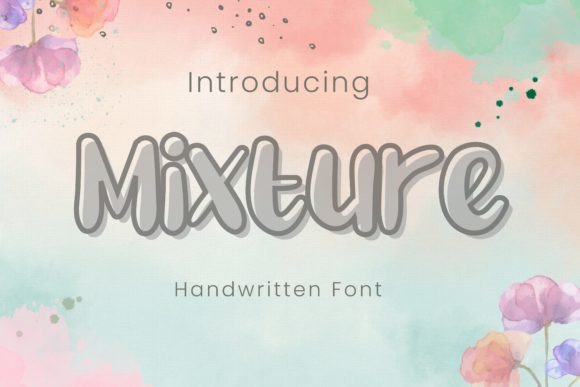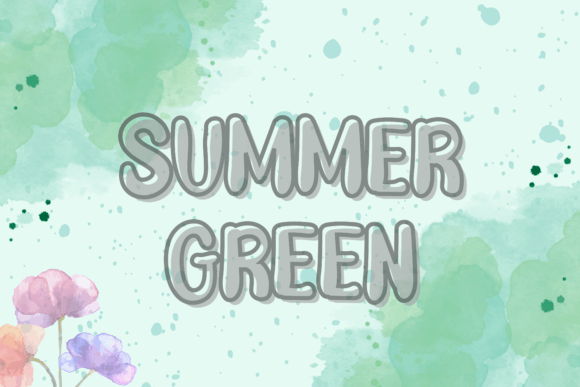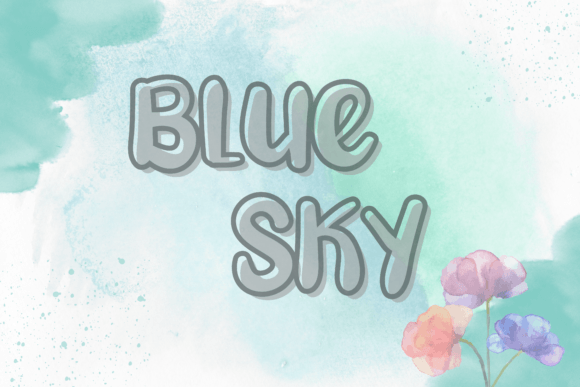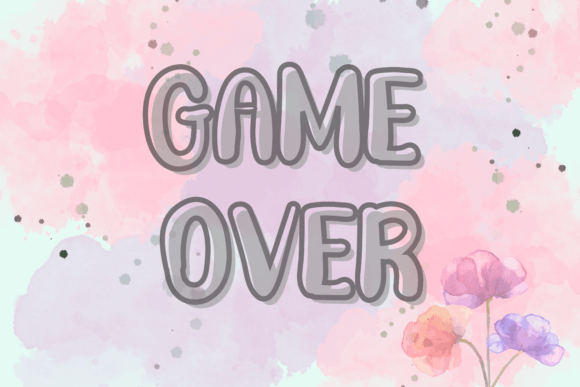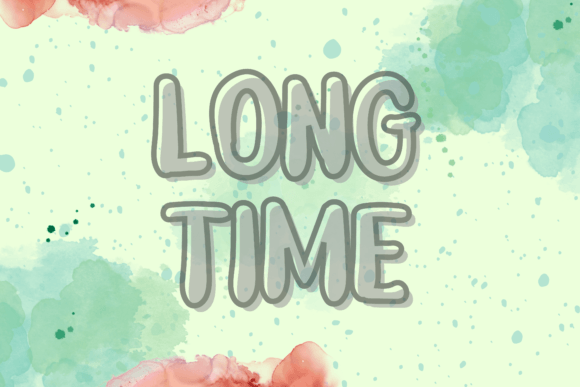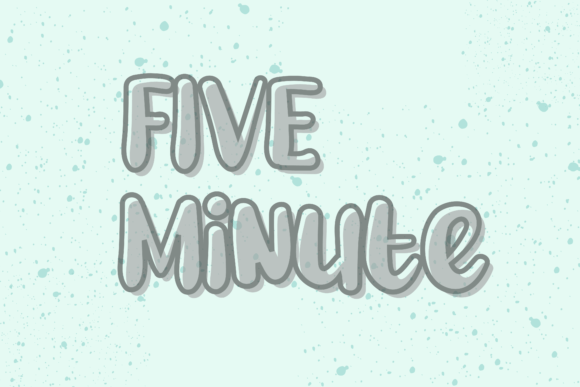
Mixture Font
About Mixture Font
**Mixture** is a delightful and charming handwritten font that combines sweetness with cuteness. Its captivating style makes it an ideal choice for a variety of design projects, adding a touch of charm and beauty. Whether used in logos, wedding invitations, t-shirts, letterheads, labels, news articles, posters, badges, or any creative endeavor, Mixture brings a unique and delightful flair to your designs.
One of the standout features of Mixture is its sweetness. The font’s playful and friendly letterforms exude a sense of warmth and approachability. Mixture is perfect for projects that aim to create a friendly and inviting atmosphere, such as greeting cards, social media posts, or children’s book covers. Its sweet demeanor adds a touch of innocence and joy to your designs, making them more appealing and relatable to a wide audience.
Mixture’s cuteness adds an element of endearment to your projects. Its adorable and whimsical style makes it particularly suitable for designs targeting younger audiences, such as children’s books, educational materials, or products for kids. In these contexts, Mixture can capture the imagination of children and create a playful and engaging visual experience.
The font’s versatility allows it to be applied to various design contexts. In wedding invitations and romantic-themed projects, Mixture can add a charming and elegant touch, creating a romantic atmosphere for special occasions. Its handwritten charm also makes it a popular choice for branding and logo design, adding a personalized and authentic feel to your brand identity. Whether used in print or digital media, Mixture’s cuteness and sweetness enhance the overall visual appeal of your designs.
In summary, Mixture is a sweet and cute handwritten font that infuses your projects with charm and beauty. Its playful and friendly style, coupled with its versatility, makes it a valuable asset for a wide range of design applications. By incorporating Mixture into your creative endeavors, you can bring a delightful and endearing quality to your designs, making them more memorable and enjoyable for your audience.